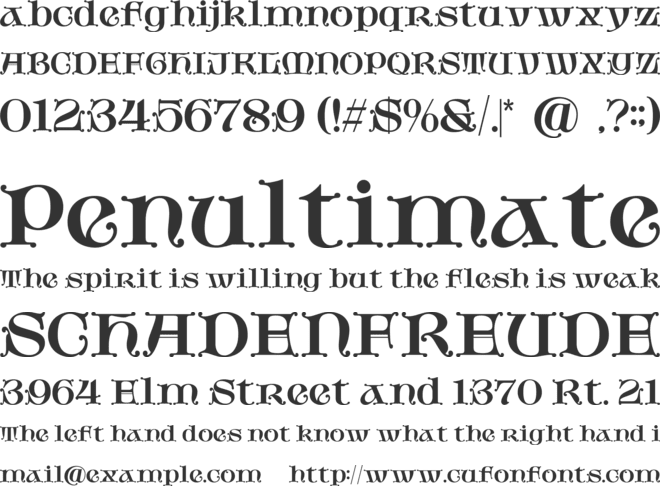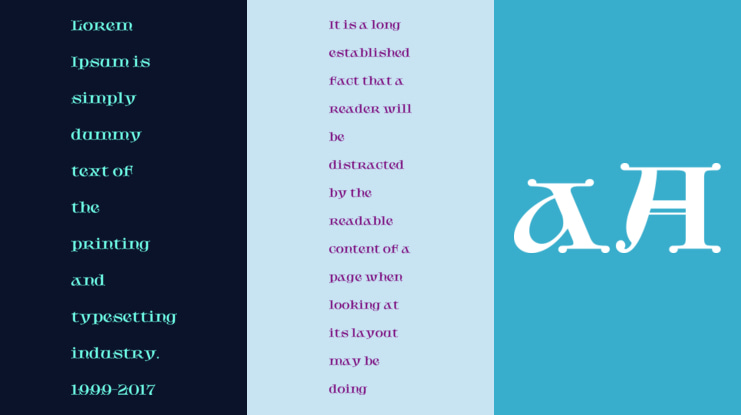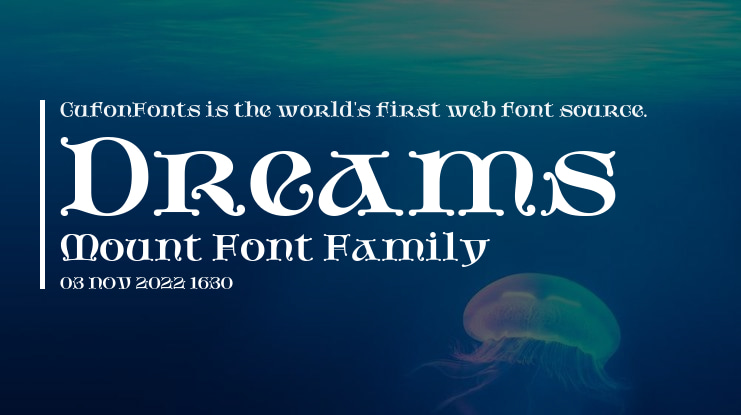
Dreams Mount Font
reams Mount Typeface: Weave Magic and Artistry into Every Word
Step into a golden era of design where art and nature intertwine. Introducing Dreams Mount, a breathtakingly elegant decorative font that captures the soul of the Art Nouveau movement.
If you've ever been mesmerized by the flowing, organic lines of an antique book cover, the romanticism of a vintage poster, or the timeless grace of classical forms, Dreams Mount is the typeface you've been waiting for. It is more than a font; it is an artist's toolkit designed to infuse your work with a level of beauty and sophistication that is simply unforgettable.